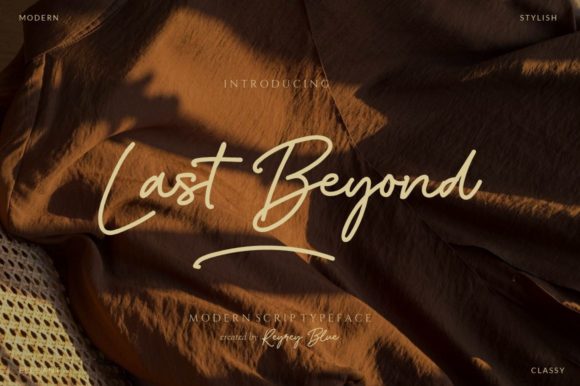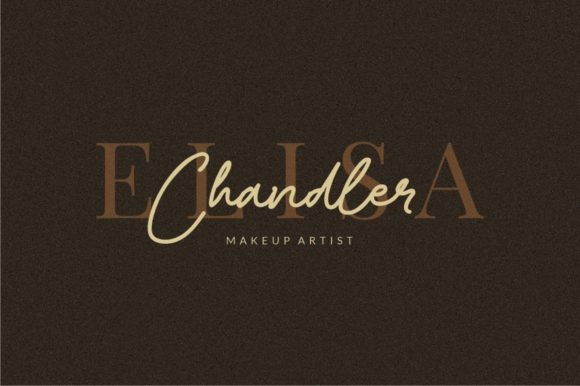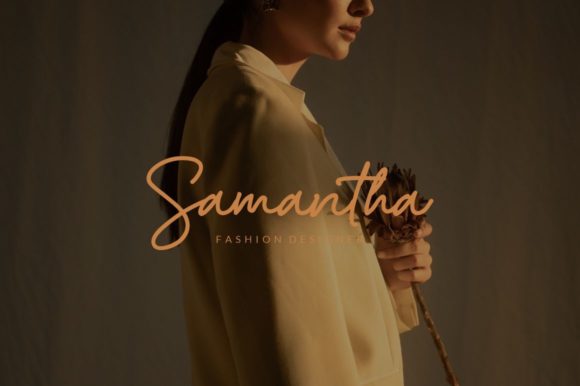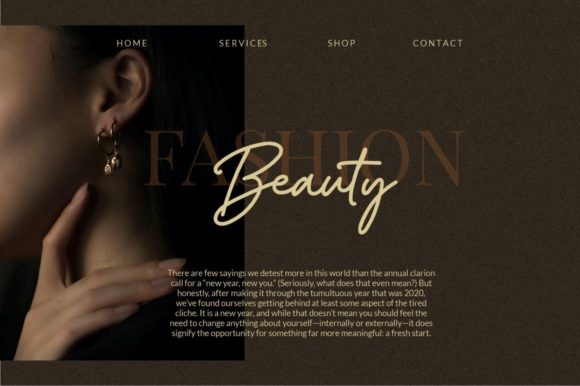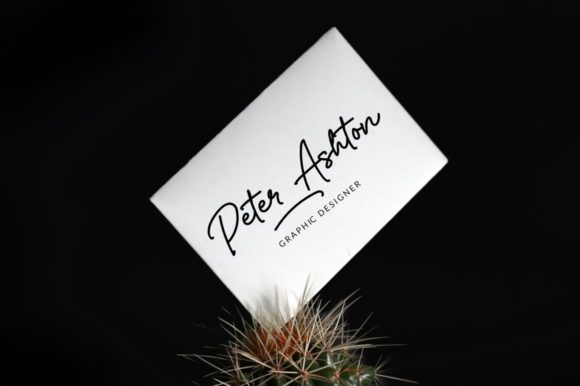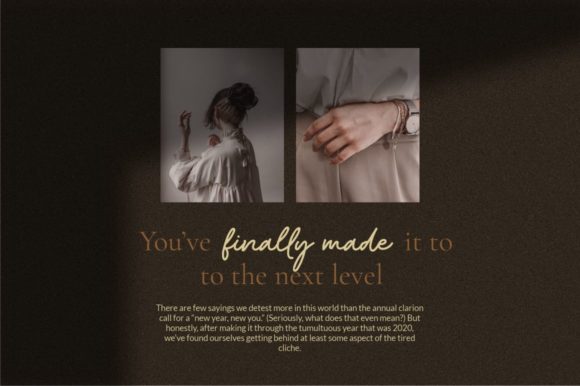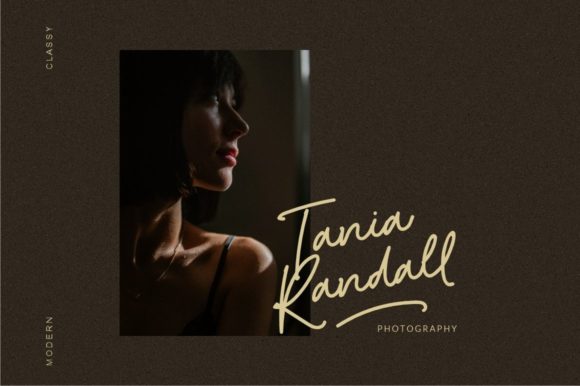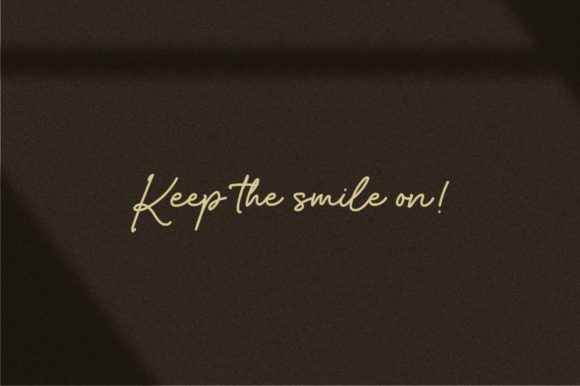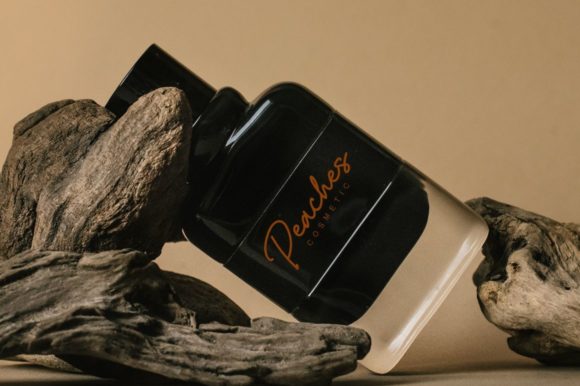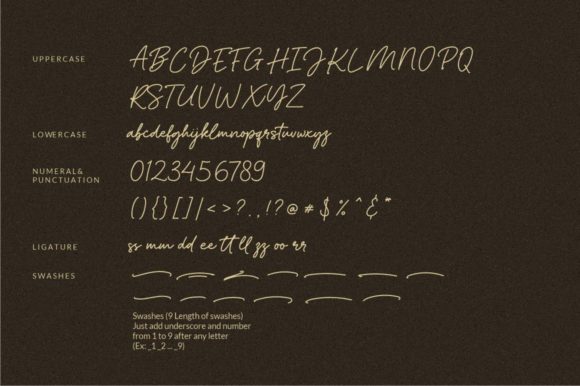
Last Beyond Font
About Last Beyond Font
“Last Beyond” is a superb handwritten font designed to make your work stand out with its elegant and curvy lines. This font is perfect for a wide range of applications, including product packaging, branding projects, magazine covers, social media graphics, weddings, or any scenario where you want to express words above a background with sophistication and style.
The elegant and curvy lines of “Last Beyond” contribute to its overall aesthetic appeal, providing a sense of refinement and uniqueness. Whether applied to product packaging or branding initiatives, this font adds a touch of elegance that can elevate the visual impact of your designs.
In product packaging, “Last Beyond” can enhance the overall presentation with its elegant and well-crafted lines. Its handwritten style adds a personalized touch that can make the packaging more memorable and visually appealing.
For branding projects, the font’s elegance becomes a valuable asset, conveying a sense of sophistication and style. Whether used in logos, promotional materials, or digital platforms, “Last Beyond” contributes to a brand identity that stands out and makes a lasting impression.
Magazine covers benefit from the font’s ability to bring a touch of refinement and elegance. The curvy lines add a dynamic and eye-catching quality to cover designs, making “Last Beyond” a suitable choice for publications that want to make a statement.
On social media, the font adds a sense of style and sophistication to graphics and posts. Whether used in quotes, announcements, or promotional materials, “Last Beyond” captures attention and enhances the visual appeal of content, maintaining a stylish brand presence.
In wedding materials, “Last Beyond” imparts an elegant and romantic feel. From invitations to place cards, the font’s curvy lines contribute to a unique and memorable aesthetic that complements the celebratory occasion.
In summary, “Last Beyond” is more than just a font; it’s a design asset crafted for elegance and sophistication. With its superb handwritten style and curvy lines, this font is poised to make your work stand out, adding a touch of refinement and style to every application, from product packaging to social media graphics and beyond.